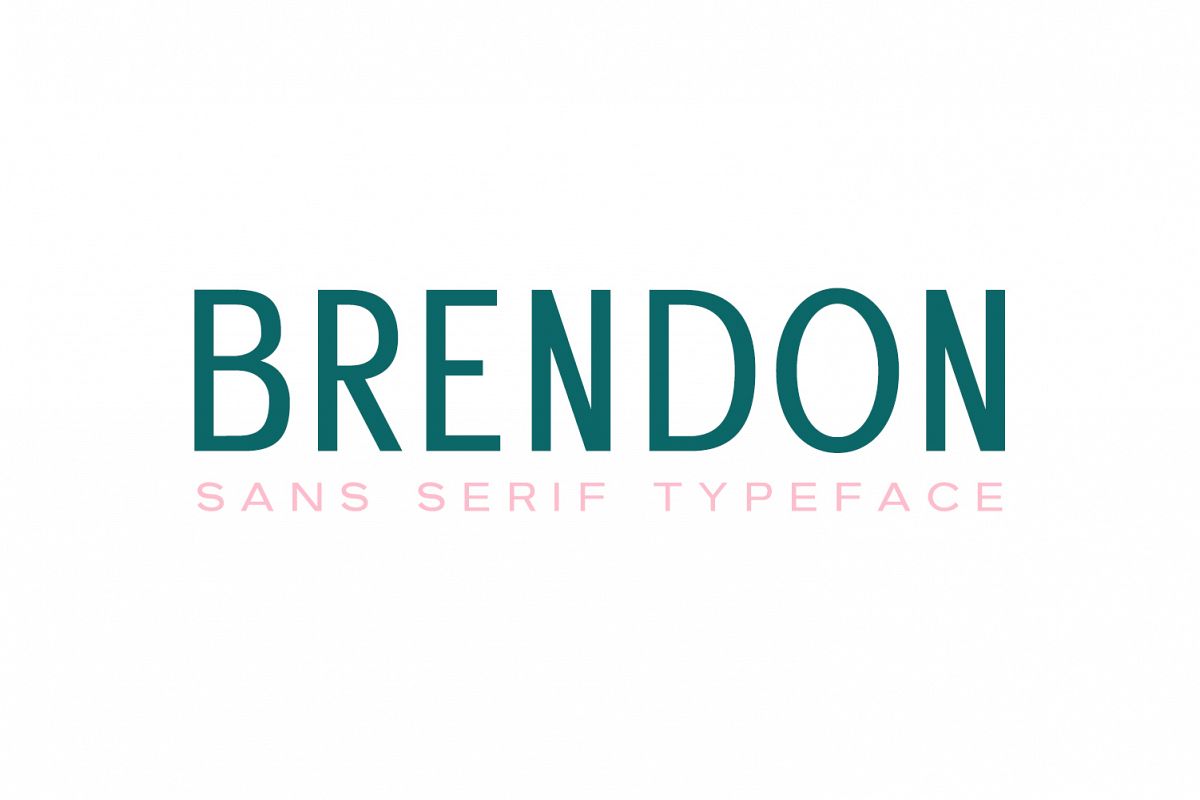
Brendon Sans Serif Typeface
Brendon-Regular
Brendon-Light
Brendon-Smooth
Brendon Sans Serif Typeface is a strong and ravishing sans serif typeface. It comes with 3 weights. Brendon will be best for texts, presentations, posters, fashion, logos, branding, photography, invitations, magazines, logos, advertisements, quotes, and other any business related. It looks gorgeous in all caps with a wide-set spacing if you want to try a classy look, or beautiful on its own in capital and lowercase letters for something completely timeless.
• Font Weight: Regular, Light, and Smooth